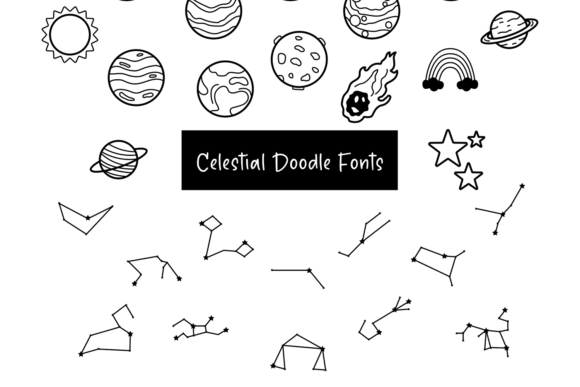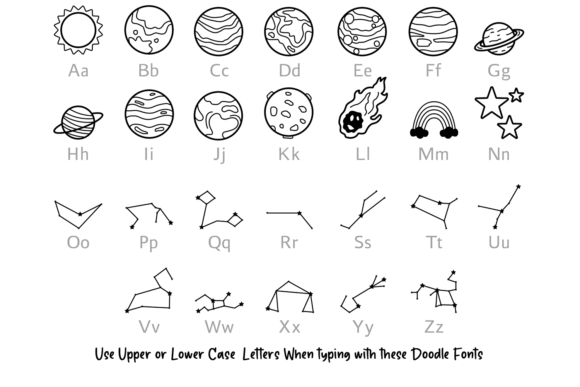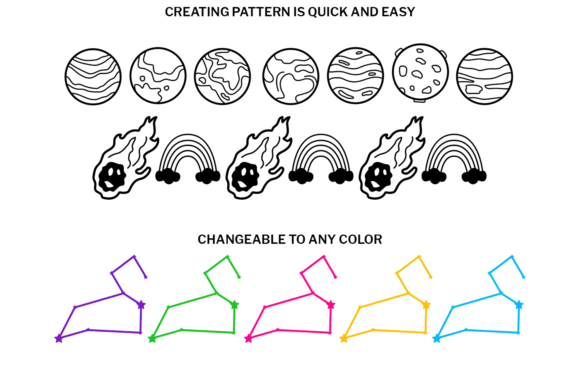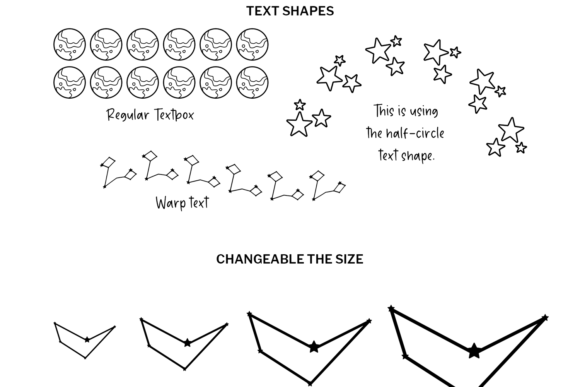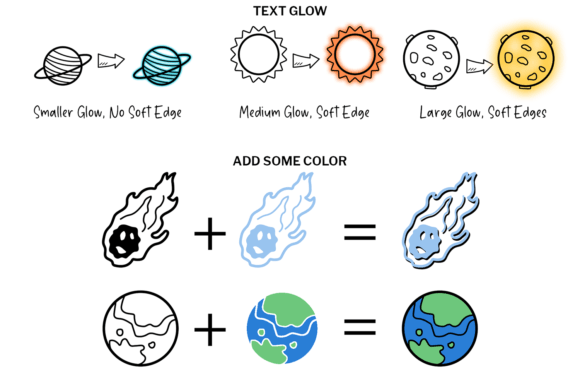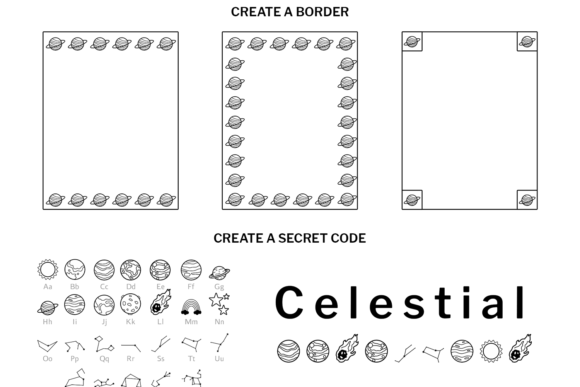
Celestial Doodle Font: Add a Touch of Whimsy to Your Designs
Are you looking for a font that can add a dash of fun and personality to your designs? Look no further than the Celestial Doodle Font! This adorable dingbats font is perfect for crafters, designers, and anyone looking to add a touch of whimsy to their projects. In this article, we’ll dive into the features and benefits of the Celestial Doodle Font, and explore how you can use it to take your designs to the next level.
What is Celestial Doodle Font?
Celestial Doodle Font is a unique and versatile dingbats font that features a range of fun and cute symbols, illustrations, and icons. From stars and moons to clouds and suns, this font has everything you need to add a touch of magic to your designs. Whether you’re working on a craft project, creating a planner or diary, or designing an activity book, Celestial Doodle Font is the perfect choice.
Key Features of Celestial Doodle Font
So, what makes Celestial Doodle Font so special? Here are just a few of its key features:
- Fun and cute designs: Celestial Doodle Font features a range of adorable symbols and illustrations that are sure to bring a smile to your face.
- Versatile: This font is perfect for a wide range of projects, from craft designs and planners to activity books and diaries.
- Unique and eye-catching: With its quirky and charming designs, Celestial Doodle Font is sure to make your projects stand out from the crowd.
Uses for Celestial Doodle Font
So, how can you use Celestial Doodle Font in your designs? Here are just a few ideas to get you started:
- Craft projects: Add a touch of whimsy to your craft projects, such as scrapbooking, card making, and journaling.
- Planners and diaries: Use Celestial Doodle Font to add fun and personality to your planners and diaries.
- Activity books: Create engaging and interactive activity books for kids, featuring the adorable illustrations of Celestial Doodle Font.
- Designs and graphics: Use Celestial Doodle Font to create eye-catching designs and graphics for social media, blogs, and websites.
Benefits of Using Celestial Doodle Font
So, why should you choose Celestial Doodle Font for your designs? Here are just a few benefits:
- Adds personality: Celestial Doodle Font adds a touch of fun and personality to your designs, making them more engaging and relatable.
- Versatile: This font can be used in a wide range of projects, making it a great addition to your design toolkit.
- Unique: With its quirky and charming designs, Celestial Doodle Font is sure to make your projects stand out from the crowd.
Tips for Using Celestial Doodle Font
Here are a few tips for getting the most out of Celestial Doodle Font:
- Experiment with different colors: Try out different colors and color combinations to add depth and interest to your designs.
- Mix and match: Combine Celestial Doodle Font with other fonts and design elements to create unique and eye-catching designs.
- Use it sparingly: Use Celestial Doodle Font sparingly to add a touch of whimsy to your designs, rather than overwhelming them.
In conclusion, Celestial Doodle Font is a fun and versatile dingbats font that’s perfect for crafters, designers, and anyone looking to add a touch of whimsy to their projects. With its range of adorable symbols and illustrations, this font is sure to bring a smile to your face and make your designs stand out from the crowd. Whether you’re working on a craft project, creating a planner or diary, or designing an activity book, Celestial Doodle Font is the perfect choice. So why not give it a try and see the magic it can add to your designs?